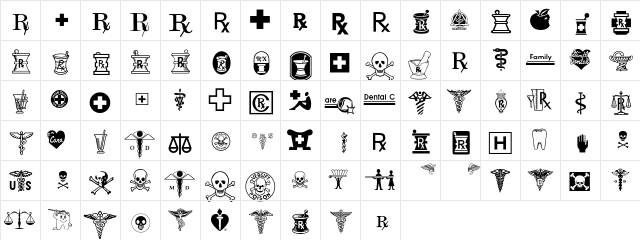
Complete MedicalPharmaceutical P01 glyph index. Displaying only characters natively supported by MedicalPharmaceutical P01 font.
MedicalPharmaceutical is a composed and adaptable typeface that performs quietly and consistently across a wide range of design contexts.